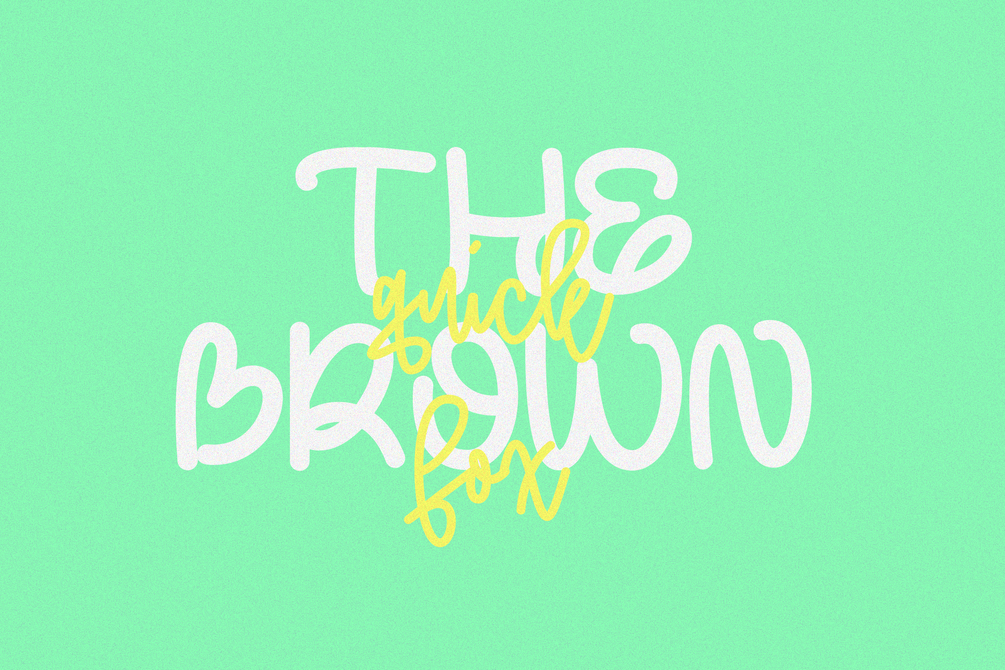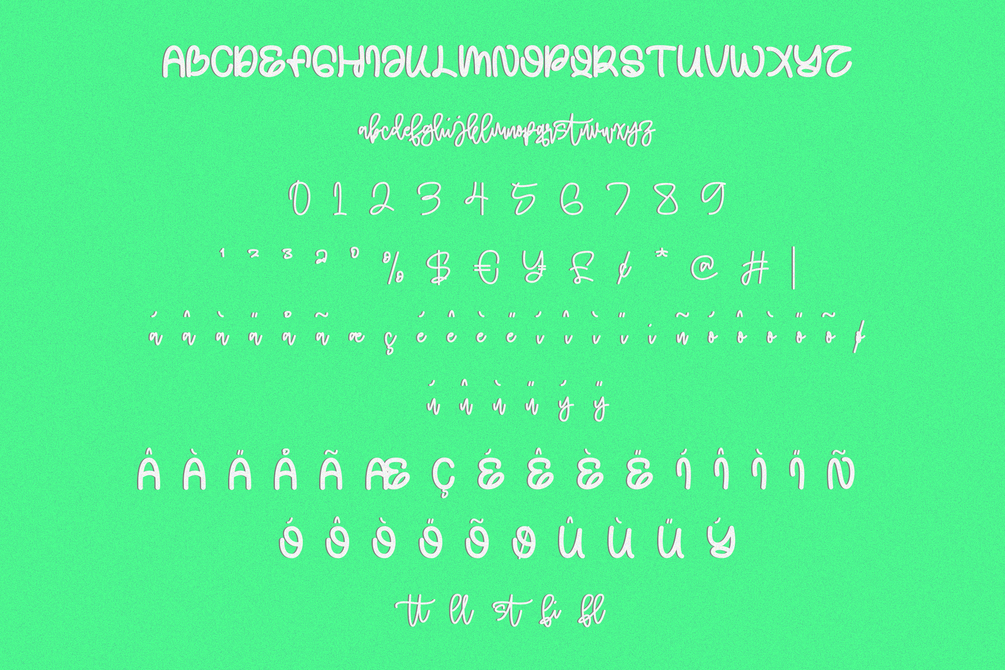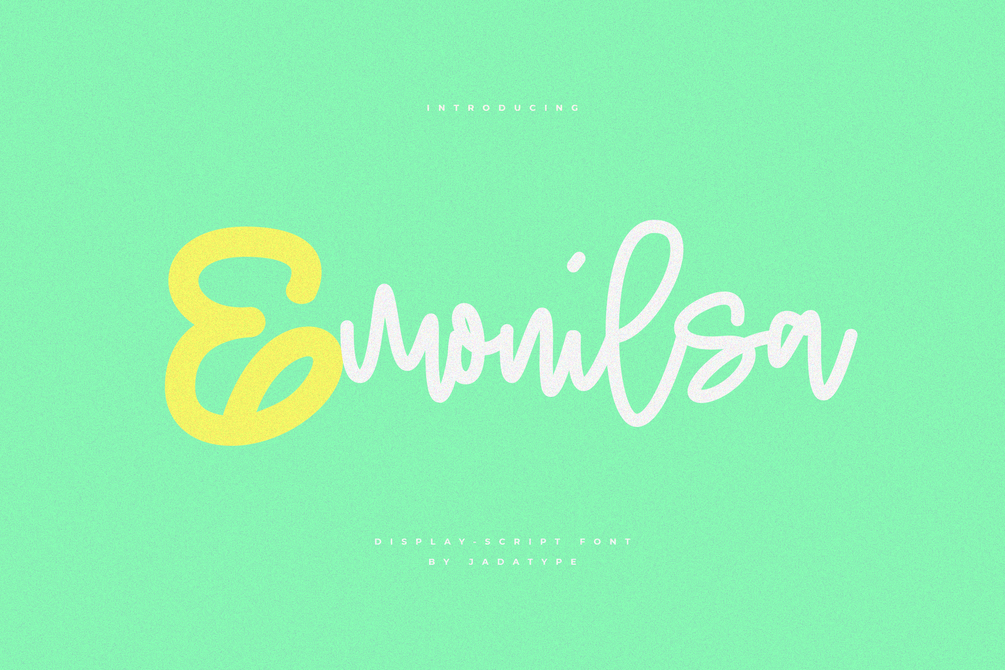
Emonilsa Font
Emonilsa is a mix script-display font that comes with a playful style. suitable for posters, tshirt, branding, social media, and so on. contains standard English letters, numbers, punctuation, and several accents that support multilingualism.